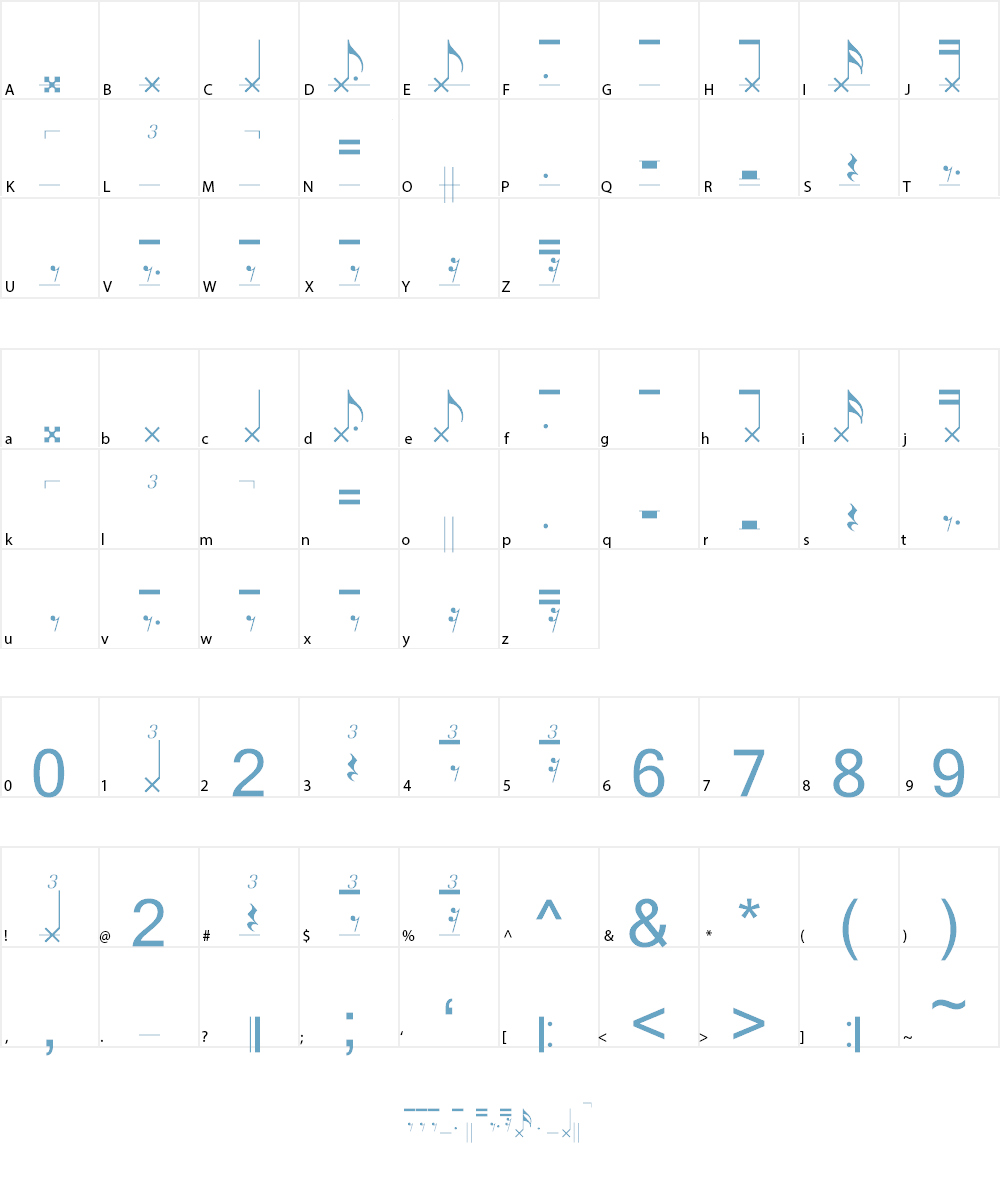
Bongos may be used to depict X-head notes in a line, in the manner used by some drummers. It may also be useful for showing the rhythm of spoken words. MusiSync has a few X-head notes, but Bongos contains a more complete system. There are now two fonts: Bongos has stems up, and Bongos2 has stems down. They may be used alone or incombination.
Duration varies from whole to 1/16, with or without dots. Notes may be beamed or tripled. There is a percussion clef, measure bar, repeats, and system close. The notes may be shown with or without a horizontal connecting line.